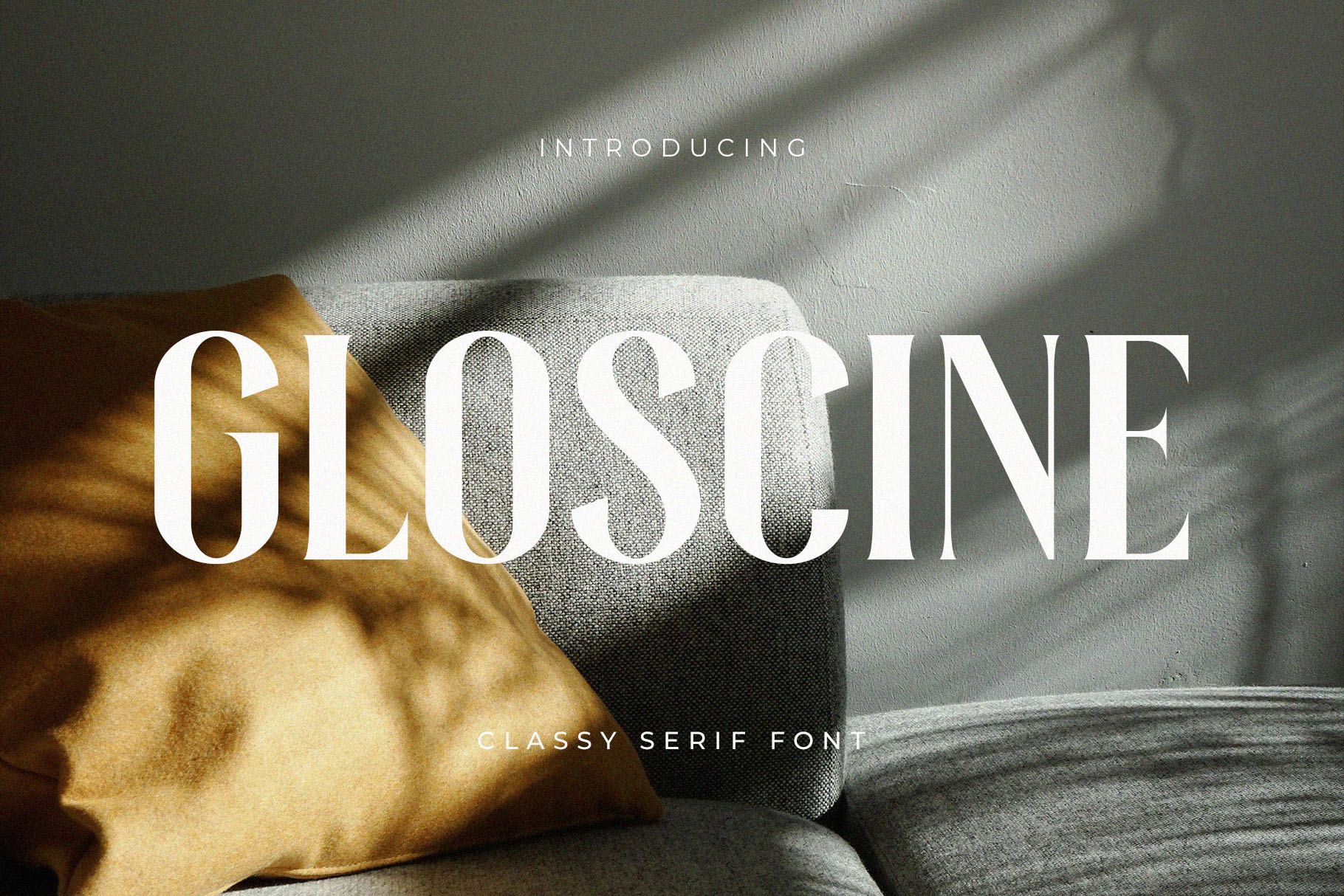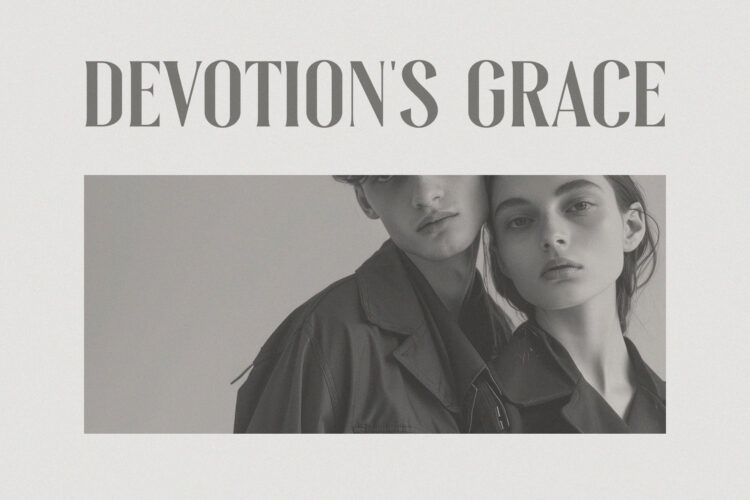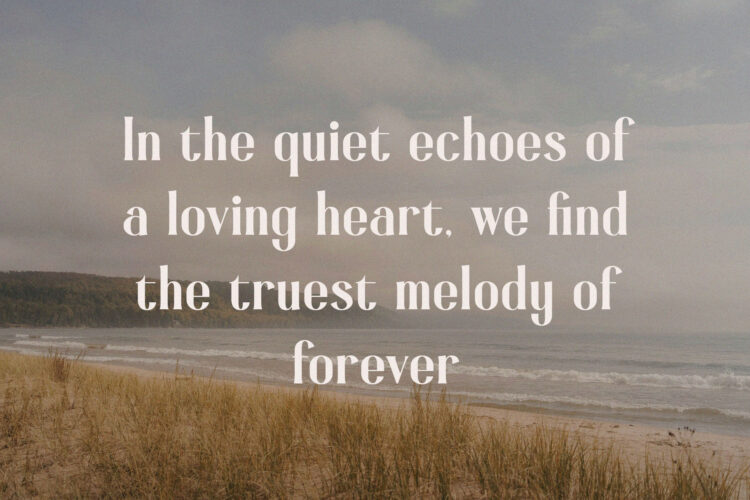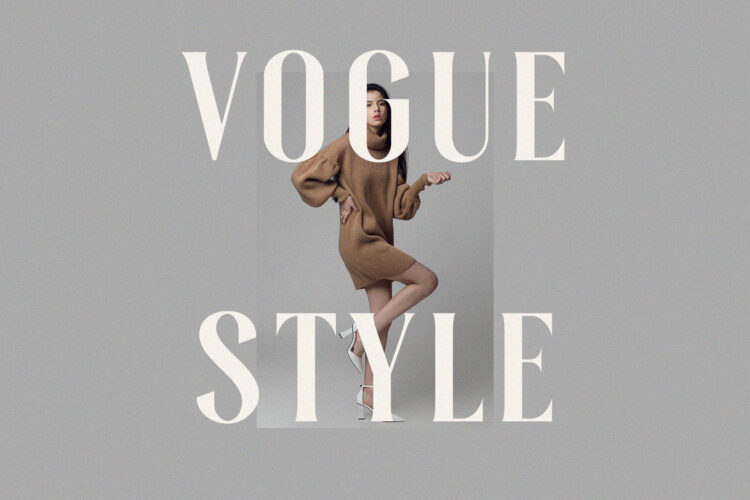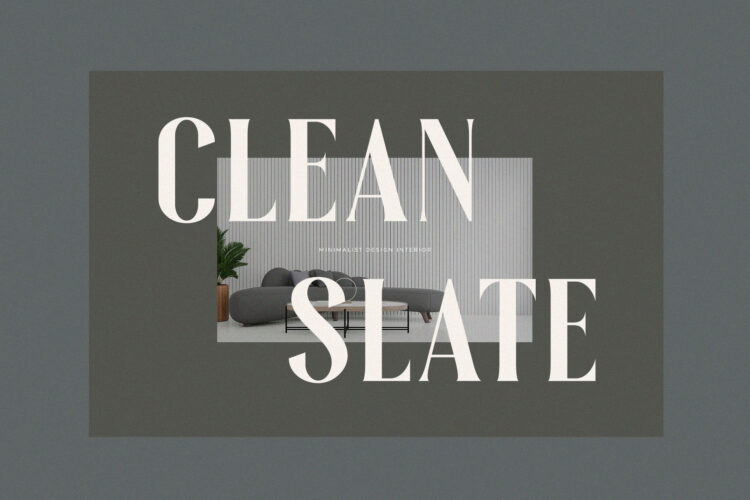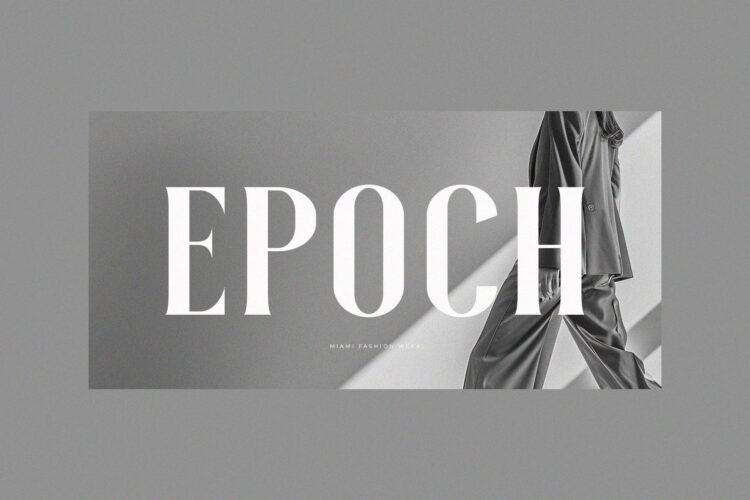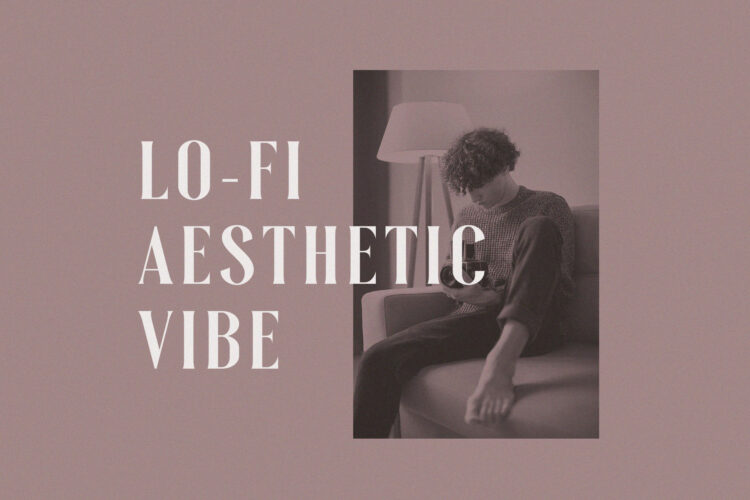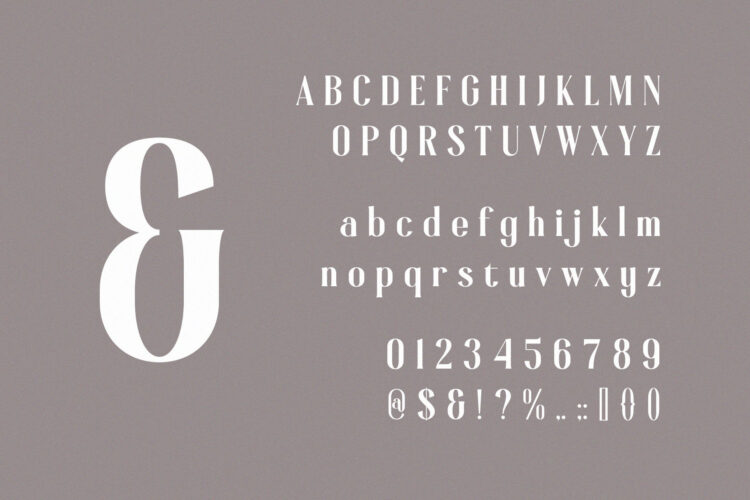
Gloscine – Classy Condensed Serif Font for Elegant Branding & Editorial Design
Gloscine is a modern vintage serif font with a refined, condensed look that radiates timeless elegance and sophistication. With its tall letterforms and sharp, stylish serifs, Gloscine is perfect for luxury branding, magazine headlines, fashion logos, wedding invitations, and high-end packaging.
Inspired by the glamour of editorial typography and old-world charm, this font blends classic serif structure with a contemporary twist — ideal for projects that demand both elegance and modern flair.
Features:
– Uppercase & lowercase letters
– Perfect for luxury, fashion, and editorial design
Whether you’re crafting a high-end brand or an artistic poster, Gloscine gives your typography a sophisticated voice. Make your design stand out with this classy serif masterpiece.